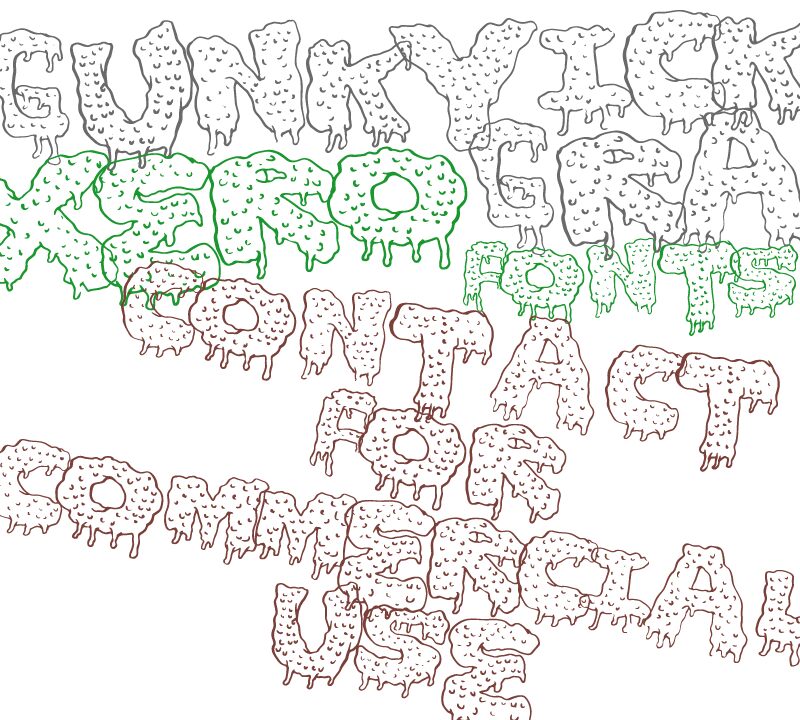
Gunky Ick by Xerographer Fonts is a free scary cartoon display font with swollen, sagging letters that look coated in sticky slime. Uneven outlines and dangling drips give the forms a restless silhouette. Small pits and short squiggles pepper the interiors, adding a grimy, creature-skin texture without obscuring the broad shapes.
Packaging is an especially good medium for this gooey lettering, particularly on novelty candy, Halloween treats, and gross-out toys. It can also turn game graphics and event posters into part of a comic horror scene, aimed at audiences who enjoy monsters, slime, and playful disgust.